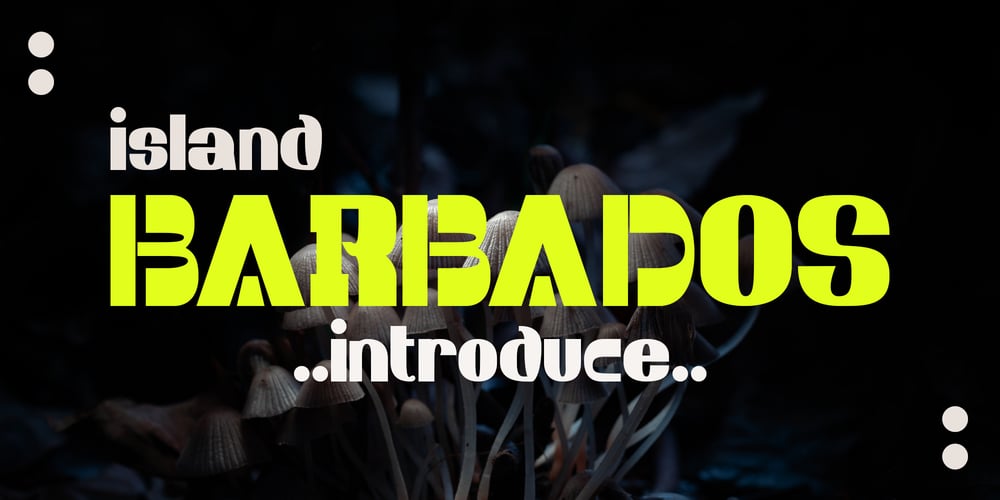
Barbados
Barbados font
Barbados Font Family was designed by Muhammad Ansari and published by Kaidosan. Barbados contains 1 styles and family package options. Barbados is a modern font that is eccentric for its versatility.a typeface that conveys a sense of comfort by combining the solidity of modern proportions with the strict precision of its profile image. His personality develops through his particular modulation, which grows with load; making it a rather jovial typeface that doesn’t abandon its more elegant modern characteristics.This font brings compatibility in a global aspect due to its extraordinary versatility for your designs.